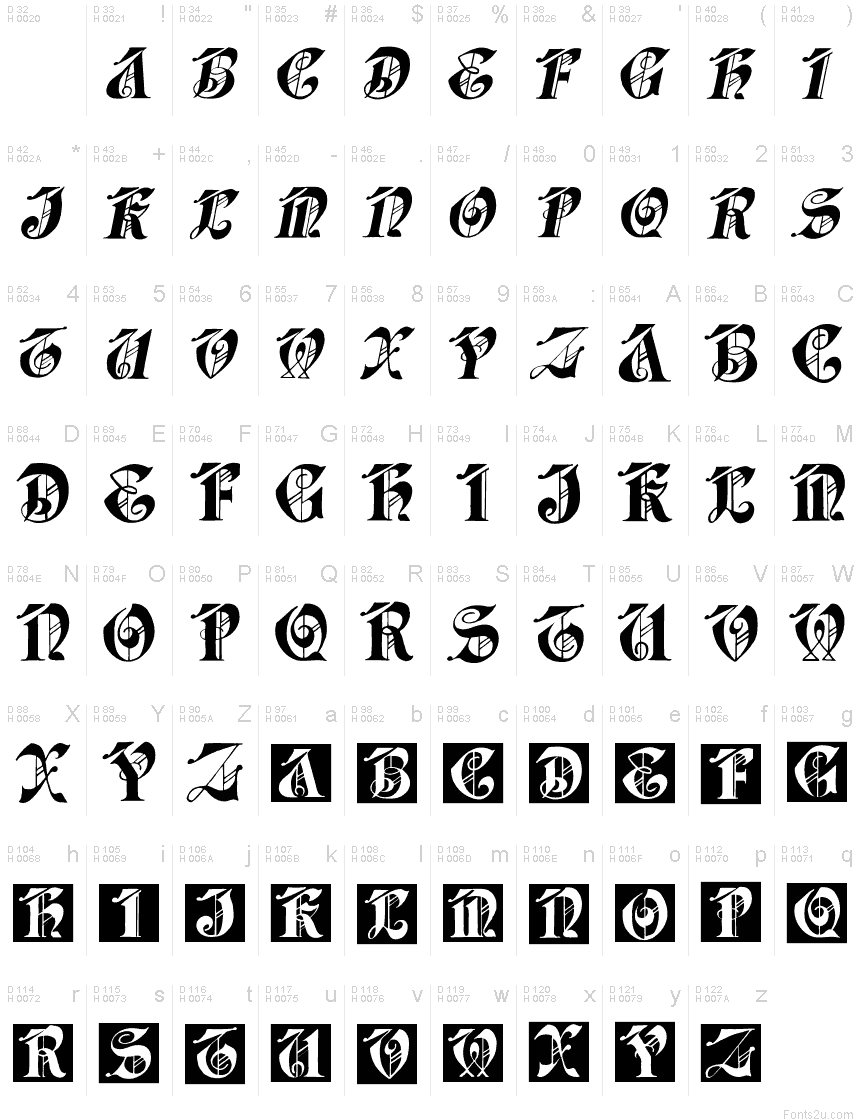
Dolby Frax Caps by M. Klein is a free blackletter initials font built from ornate, high-contrast capitals. Broad dark forms are cut through by slender loops, split strokes, and ribbon-like flourishes, giving each letter the density of an engraved monogram.
Gothic fantasy, medieval drama, and heraldic imagery provide the strongest setting for its elaborate forms, especially in book covers, theatrical posters, and game graphics. It also suits album packaging and event invitations aimed at audiences drawn to dark romantic or historical styling.